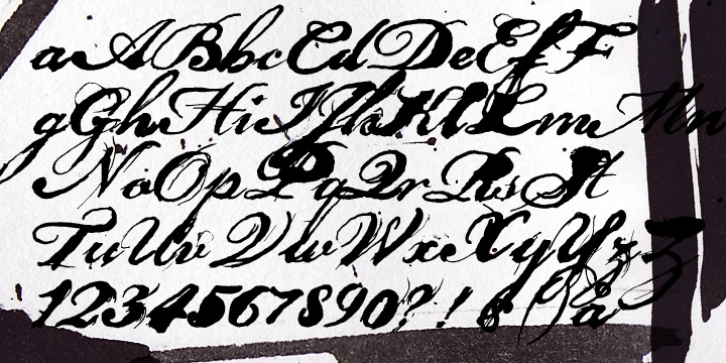
FT Grandpas Script was designed by Emil Bertell and published by Fenotype. FT Grandpas Script contains 1 style.
Grandpas Script is a blotted and hand-drawn joined script font.